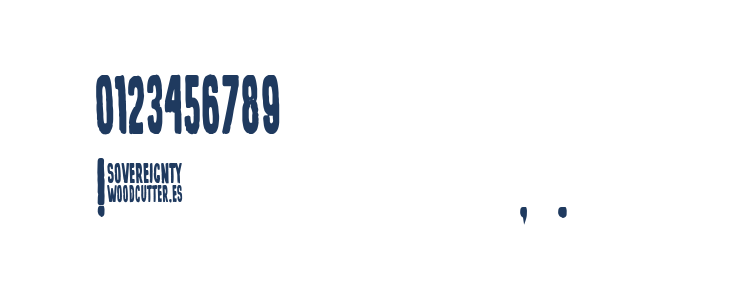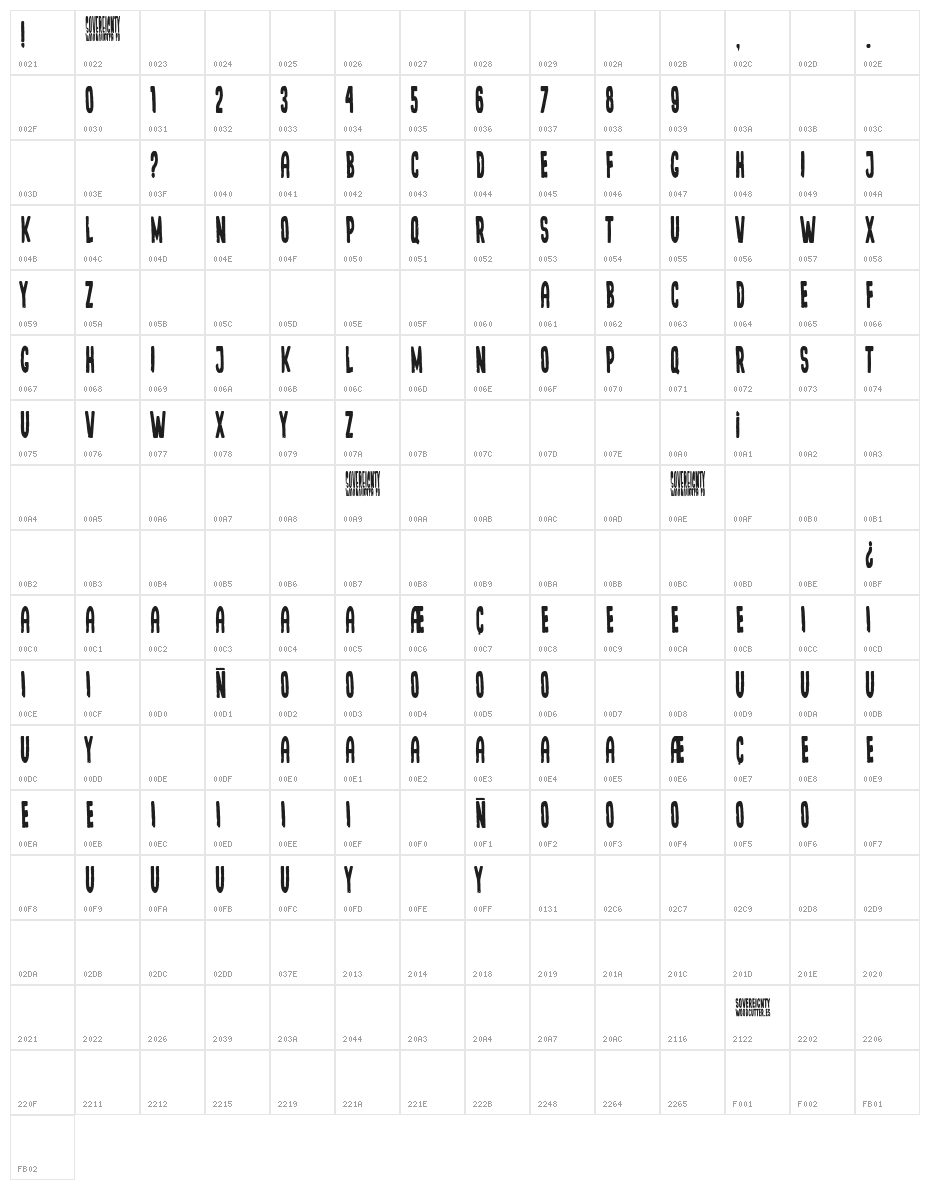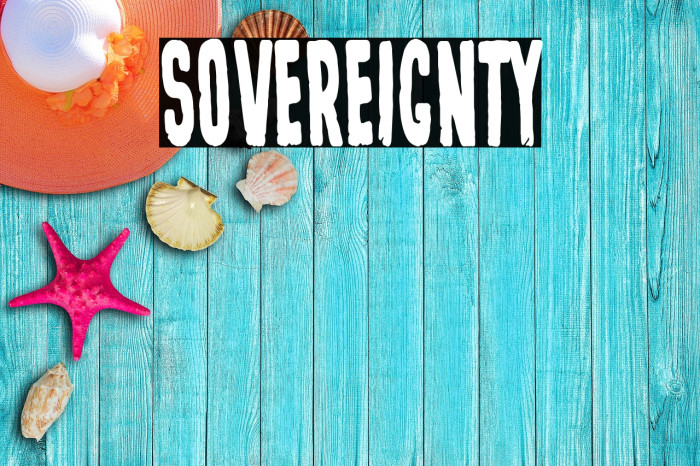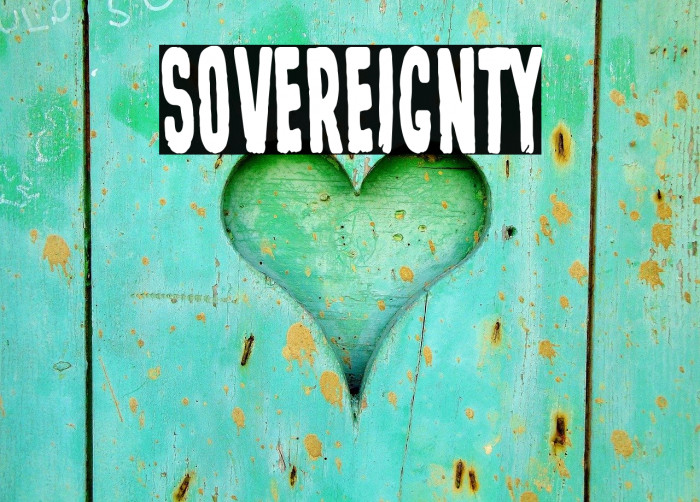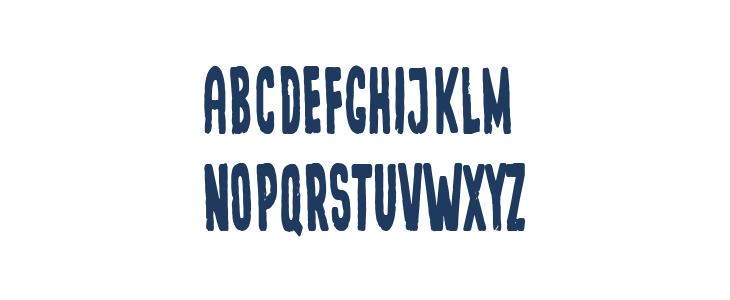
Sovereignty Font
Sovereignty Description
This font features a bold and rugged style with a hand-painted appearance, giving it a rustic and organic feel. The characters are thick and slightly uneven, adding to the handcrafted aesthetic. The uppercase letters are prominent and assertive, while the lowercase letters maintain the same boldness, ensuring consistency throughout the text. The numbers are equally robust, matching the overall style of the alphabet. This font's unique texture and strong presence make it ideal for impactful designs.
Overall StyleRustic, Handcrafted
Proposed ProjectsIdeal for posters, branding, packaging, and any project requiring a strong, handcrafted look.